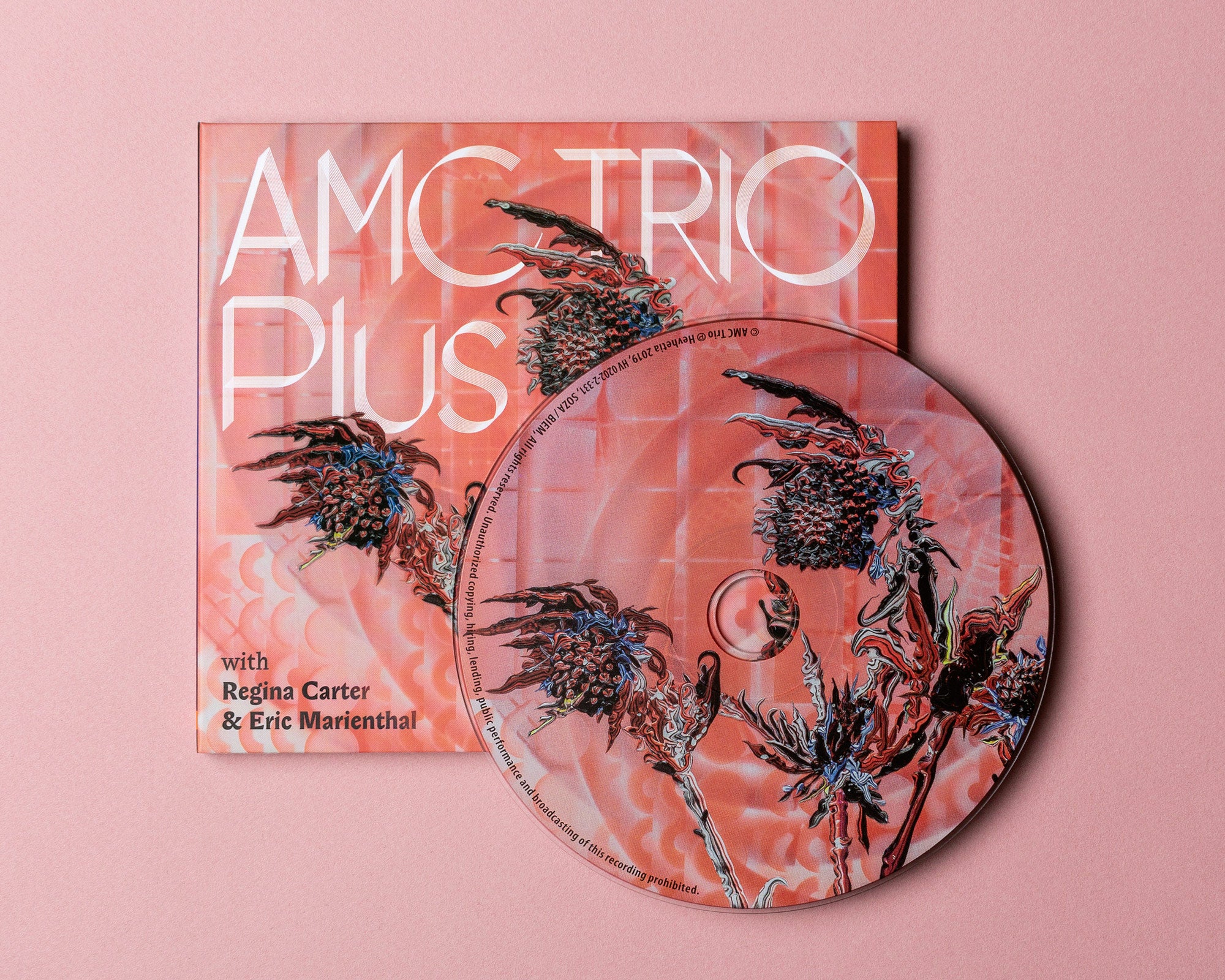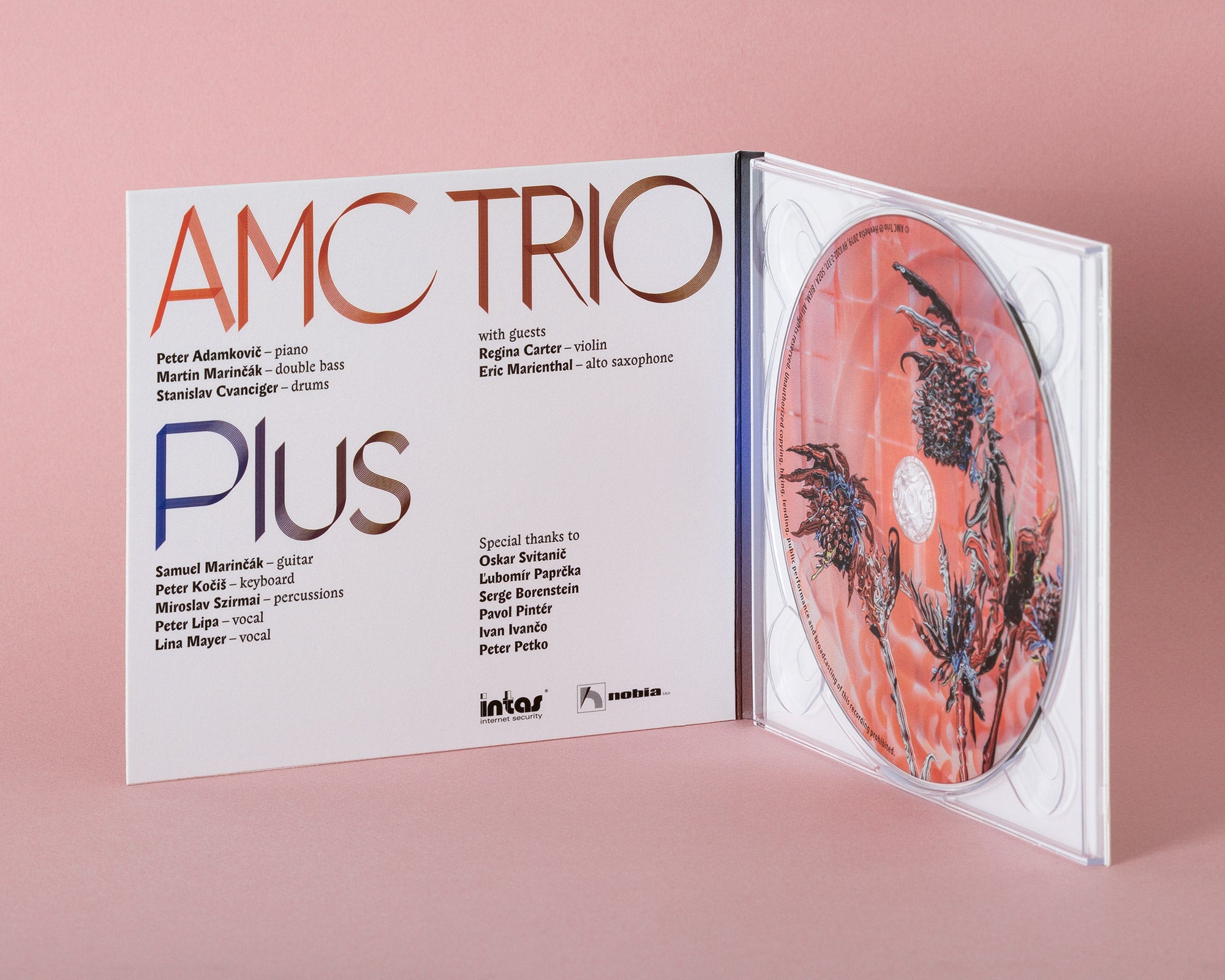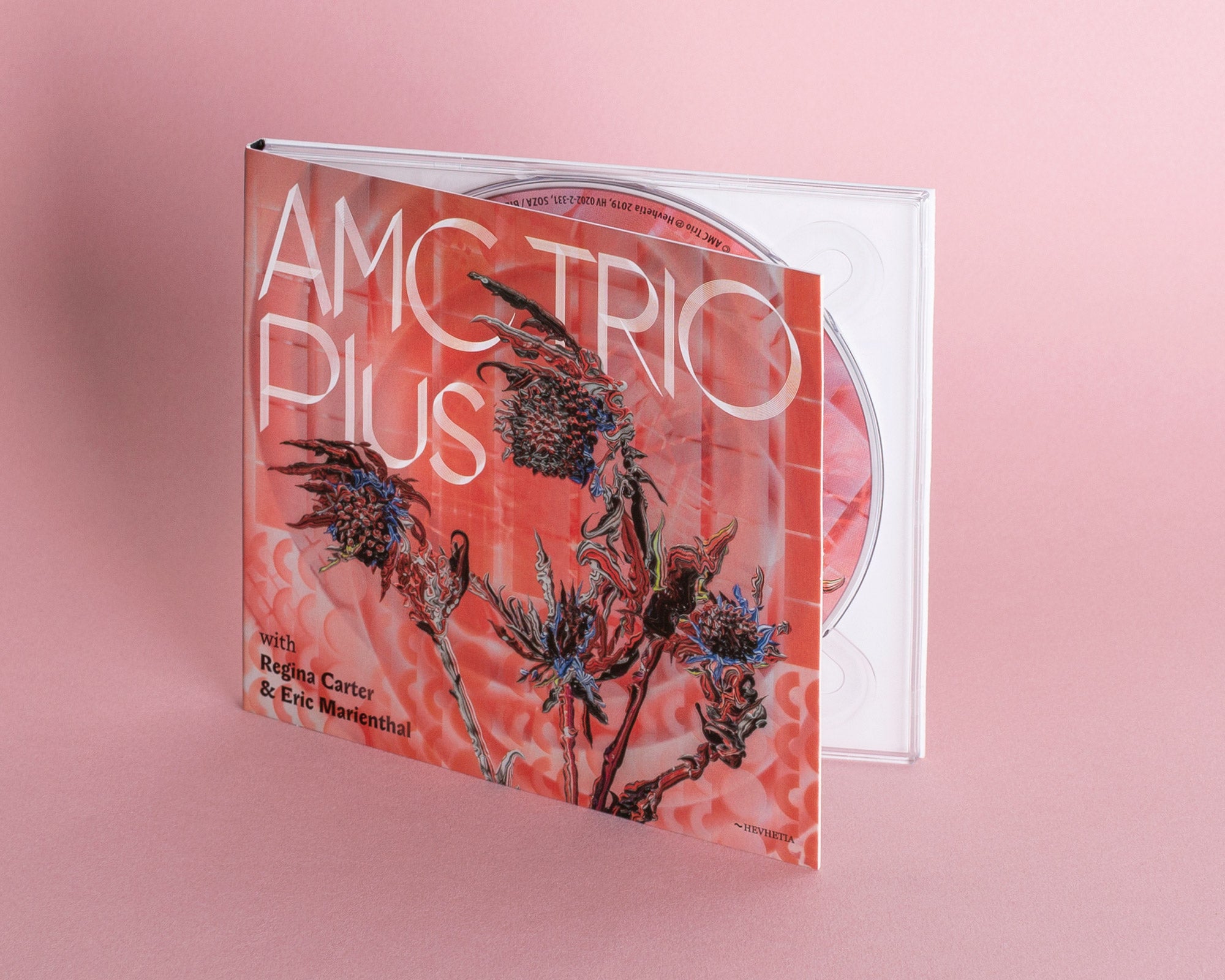
AMC TRIO Plus
The basis of the visual processing of the CD booklet for the jazz group AMC TRIO is a painting reproduction by a painter from Košice, Pavol Megyesi. The typography is inspired by the artistic atmosphere of the painting, using a custom lettering that gives the optical illusion of vibration.